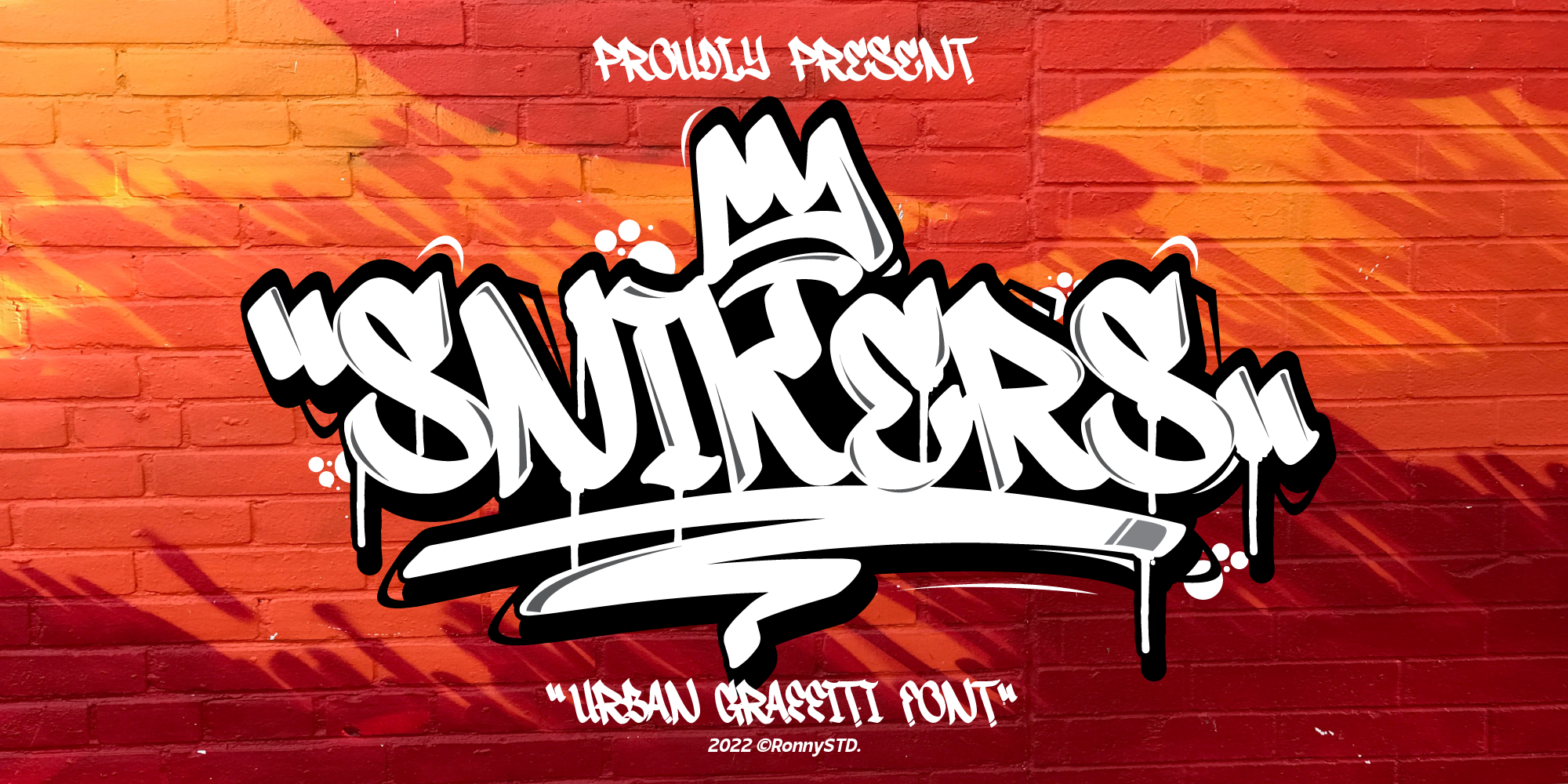
Snikers Font excels in playful design applications including candy store branding, children's snack packaging, fun bakery signage, sweet treat marketing, playful social media graphics, youth-oriented campaigns, comic book lettering, and cheerful advertising materials that require typography with mischievous character and delightful energy.
What makes Snikers Font exciting is its delightful ability to capture the spirit of playful mischief and sweet indulgence through bouncy letterforms that evoke childhood joy and carefree laughter. This charming typeface features whimsical characteristics with playful curves and energetic details that instantly communicate fun, sweetness, and lighthearted enjoyment. The font's mischievous personality and candy-inspired appeal make it perfect for brands seeking to establish connection with fun-loving audiences and communicate values of joy, playfulness, and sweet satisfaction.
Snikers Font family includes various weights and playful variations designed for comprehensive fun-focused communication. The family typically includes regular, bold, and decorative weights, complemented by bouncy alternates, sweet ligatures, and extended character sets with candy symbols that enhance its playful aesthetic and provide maximum delightful impact.
Fun-focused designers consistently choose Snikers Font Free Download for projects requiring typography that embodies playful mischief and sweet enjoyment. This delightful typeface delivers exceptional visual appeal across entertainment applications, from digital candy marketing to physical snack packaging, ensuring consistent brand messaging with unmistakable playful authority and sweet charm. The font's cheerfully crafted letterforms maintain excellent readability while delivering the mischievous presence that fun brands demand. Sweet entertainment agencies worldwide rely on this playful typeface to communicate brand values of joy, sweetness, and playful satisfaction. Indulge in sweet mischief with Snikers Font and create memorable visual communications that resonate with audiences who appreciate playful fun, sweet treats, and the irresistible charm of mischievous design that brings out everyone's inner child.